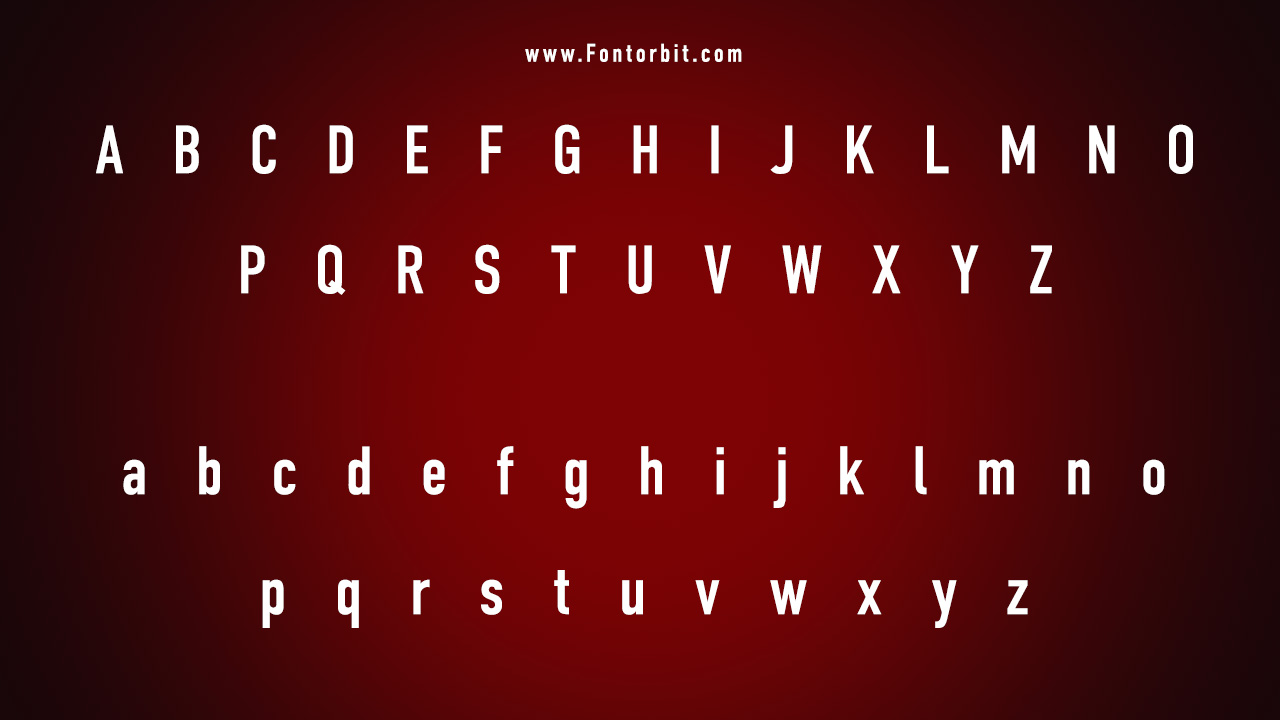
DIN Condensed is a sans-serif typeface known for its narrow, bold, and industrial style, initially designed for the German Institute for Standardization (DIN).
Manvel Shmavonyan and Tagir Safayev have designed this classic font from Paratype. Paratype designed the most famous version and was first released in the early 20th century. It belongs to the DIN family and is especially known for its versatility, making it popular in print and digital projects.
DIN Condensed Family Includes
DIN Condensed has been expanded to include various weights and styles. The font family is ideal for projects that require clarity and a professional appearance. The font family includes:
- DIN Condensed Light
- DIN Condensed Regular
Notable Uses of DIN Condensed
DIN Condensed has a long history of use in industrial and transportation contexts. It has been widely used in
- Road signage
- Technical documentation
- Public transportation systems
DIN Condensed is best suited for settings where space is limited but clarity is essential. It works perfectly in:
- Posters and billboards
- Signage and wayfinding systems
- Logos and branding
- Editorial design
DIN Condensed is an iconic typeface that has stood the test of time. Its bold, narrow appearance makes it a go-to for various practical and creative projects. Whether you’re designing road signs or modern branding materials, DIN Condensed provides the clean, professional aesthetic you need.
2.What Projects Are Best Suited For DIN Condensed?
Its clear, bold style benefits signage, branding, and editorial design.
4.Can I Use DIN Condensed For Logo Design?
Yes, its bold and narrow structure makes it great for impactful logos.
5.What Is The Difference Between DIN Condensed And DIN Regular?
DIN Condensed has narrower letterforms compared to the standard DIN Regular.
6.Does DIN Condensed Have Different Weights?
Yes, it includes various weights like Light, Regular, Bold, and more.
7.What Are Some Free Alternatives To DIN Condensed?
Free alternatives include Roboto Condensed, Oswald, and League Spartan.
8.Is DIN Condensed Suitable For Mobile Use?
Yes, its legibility at small sizes makes it a good choice for mobile apps.